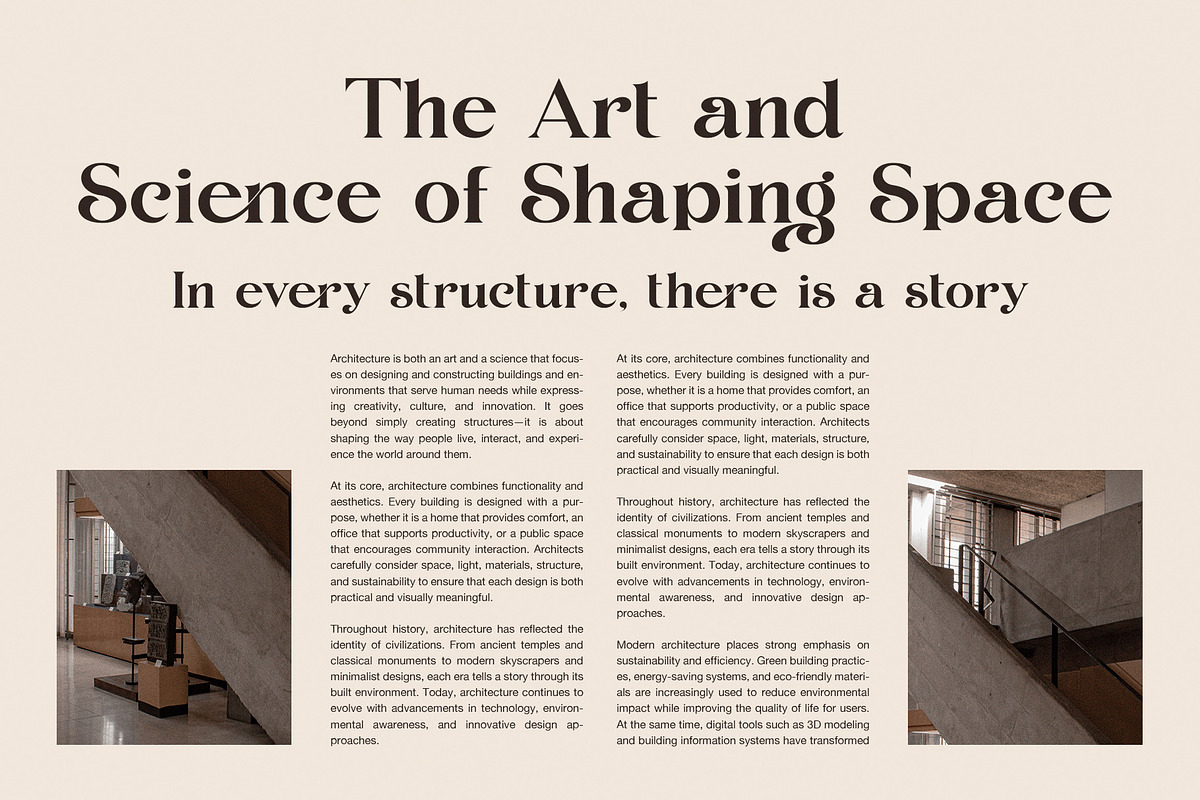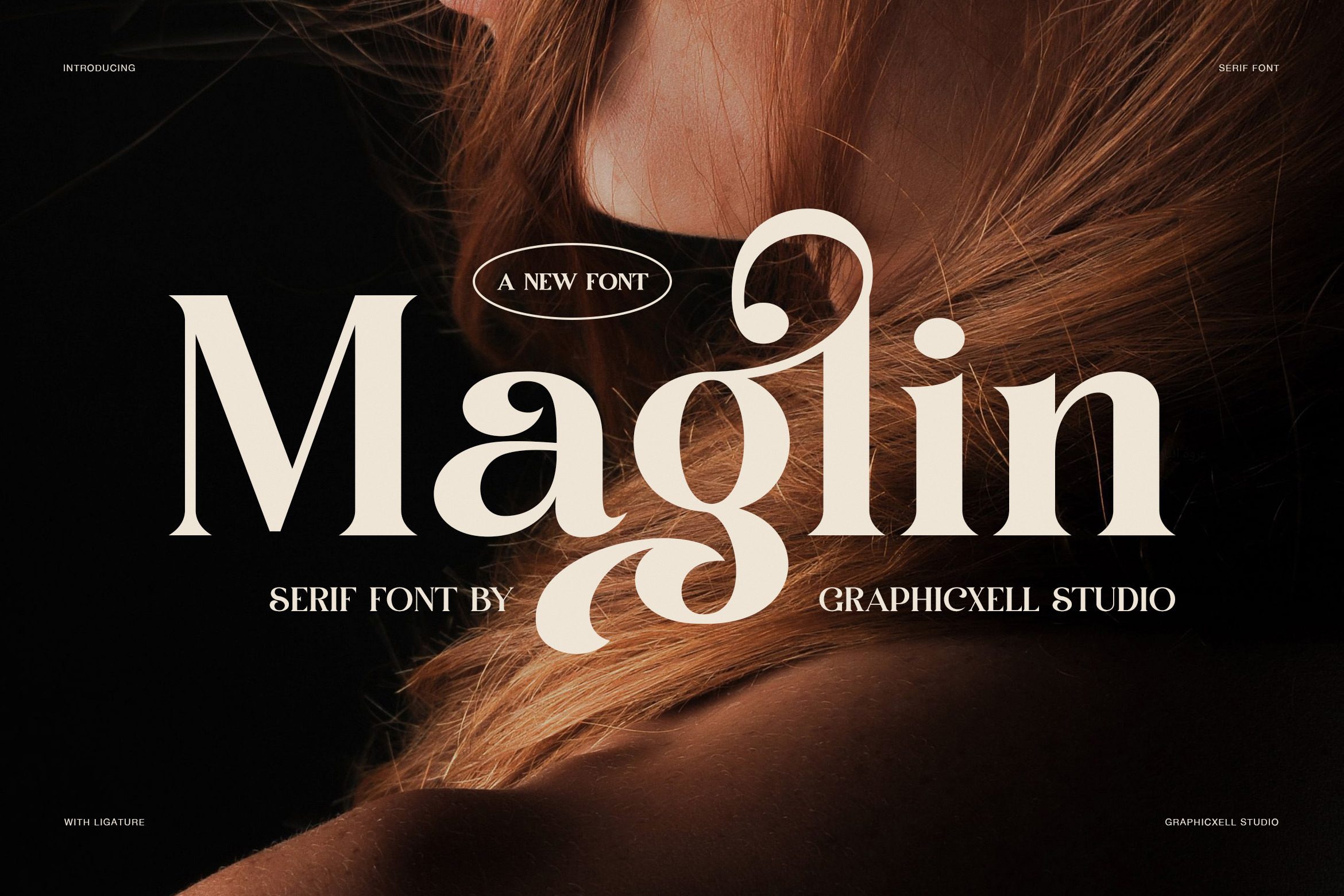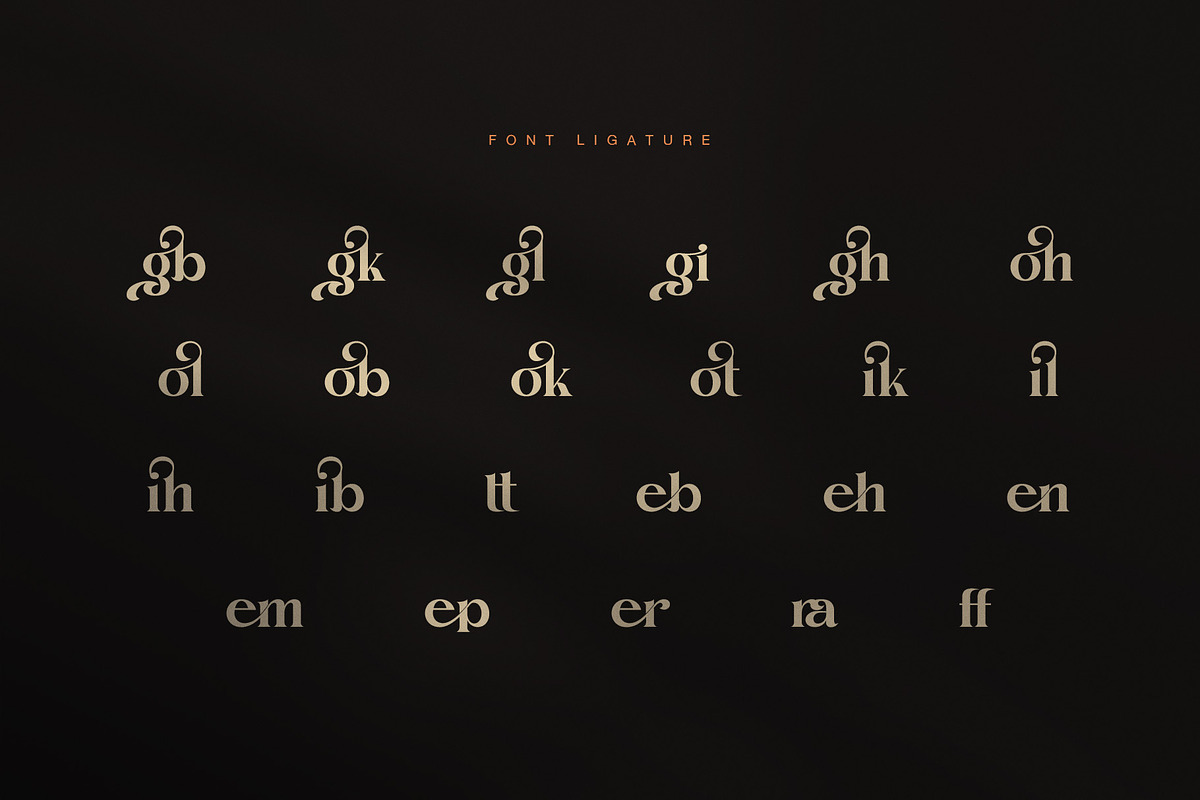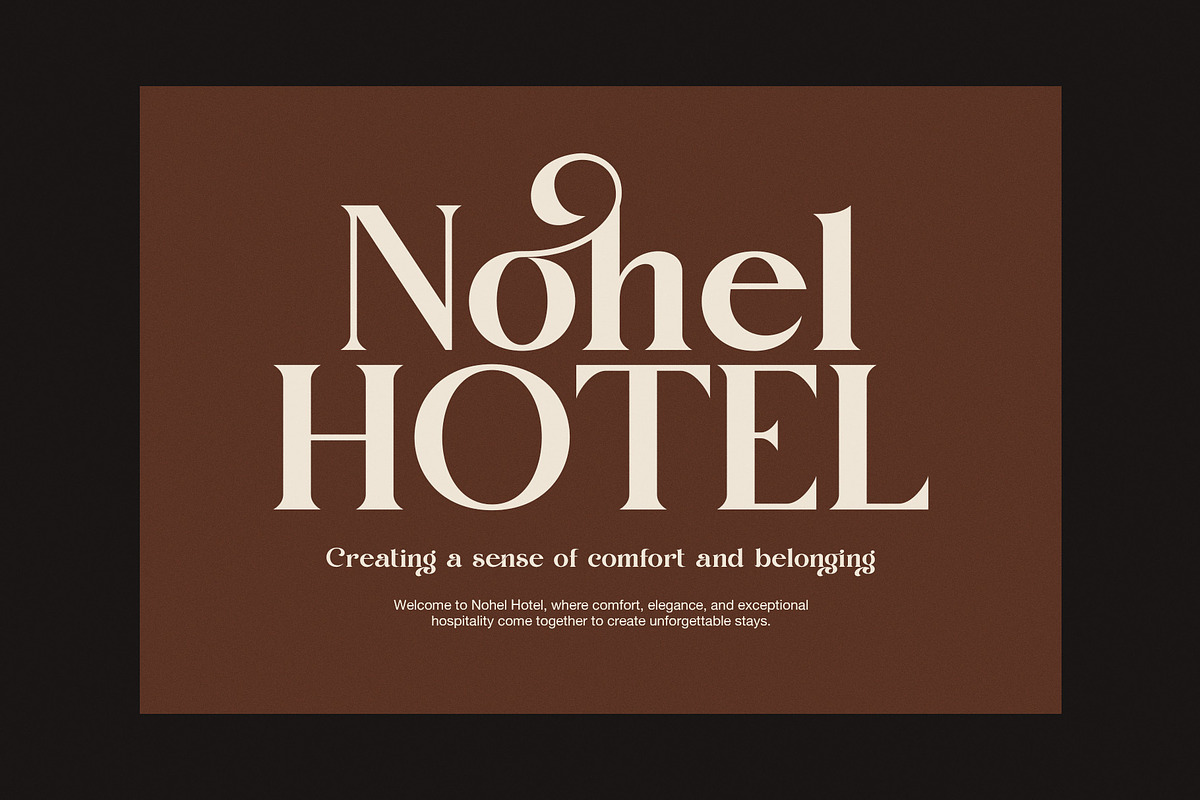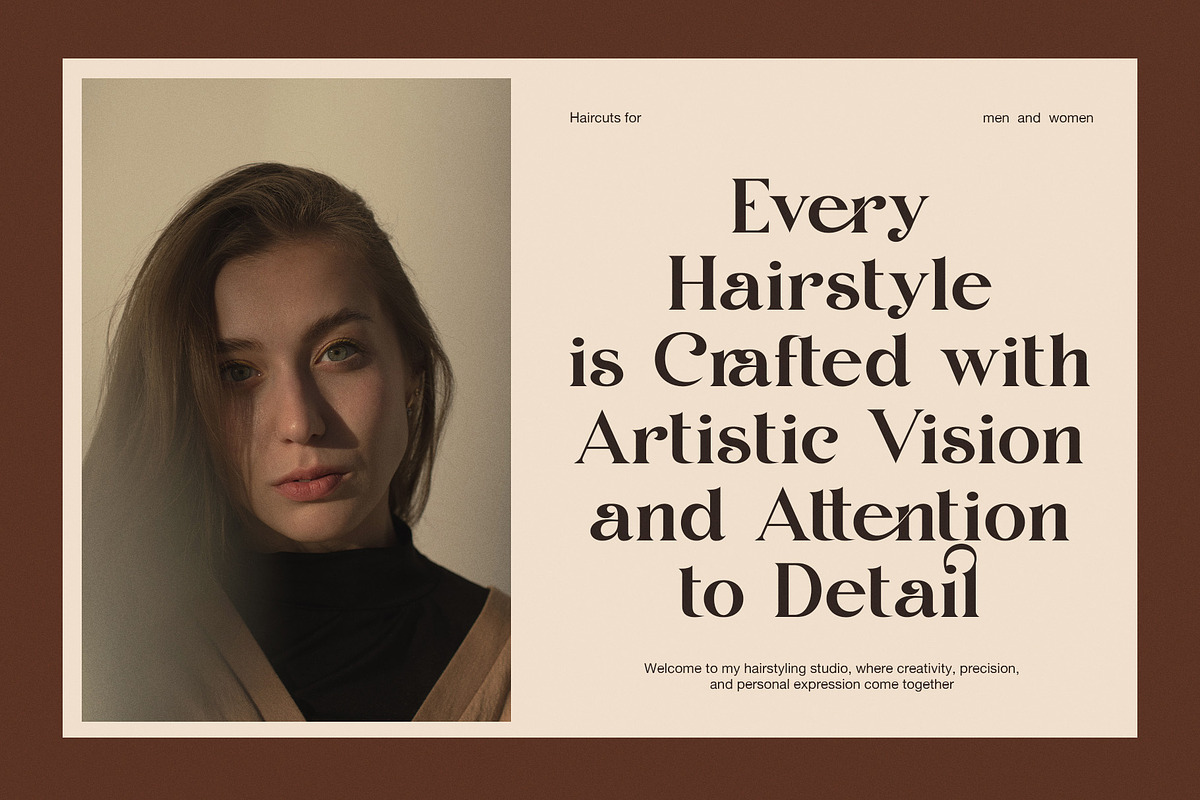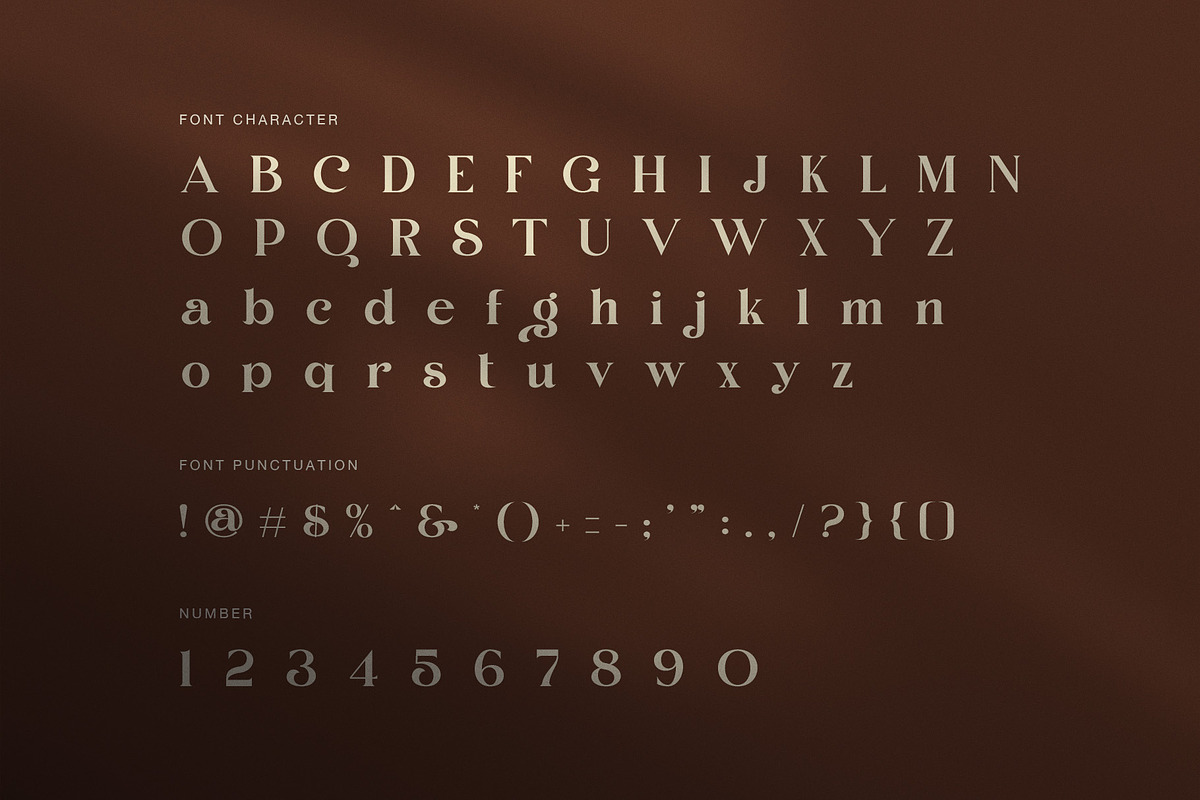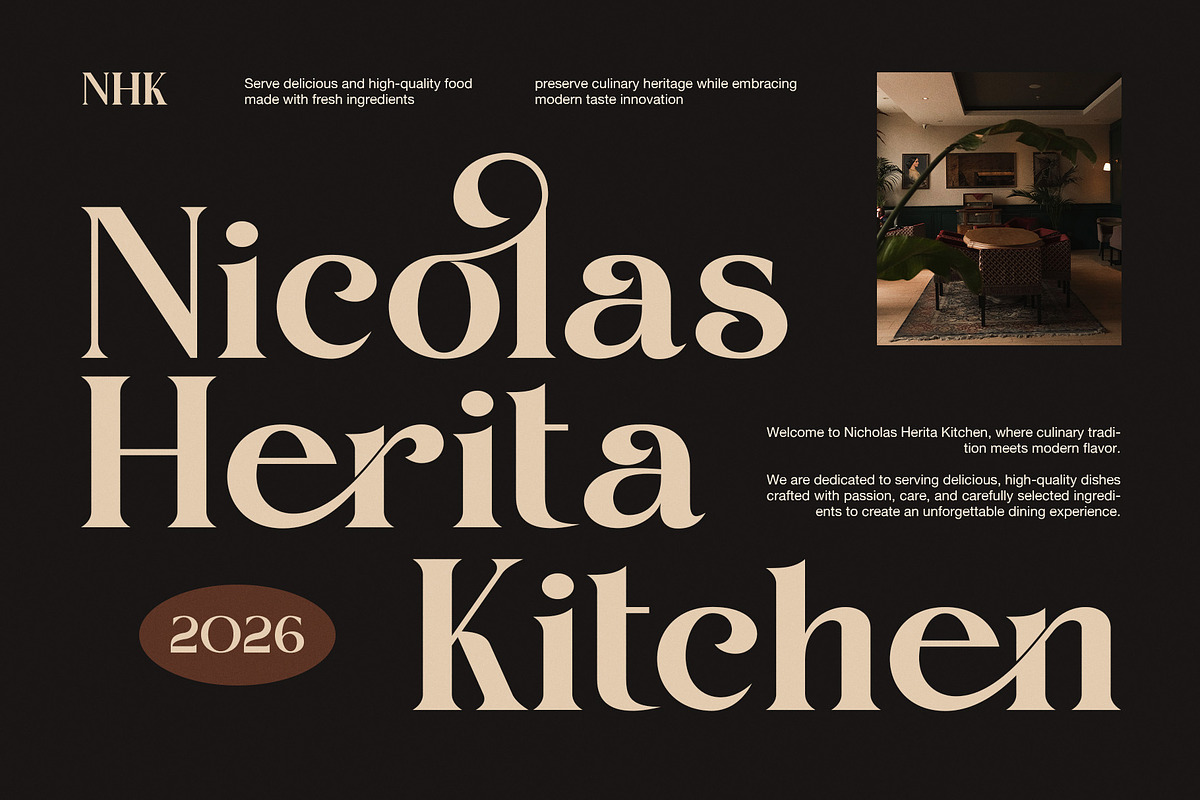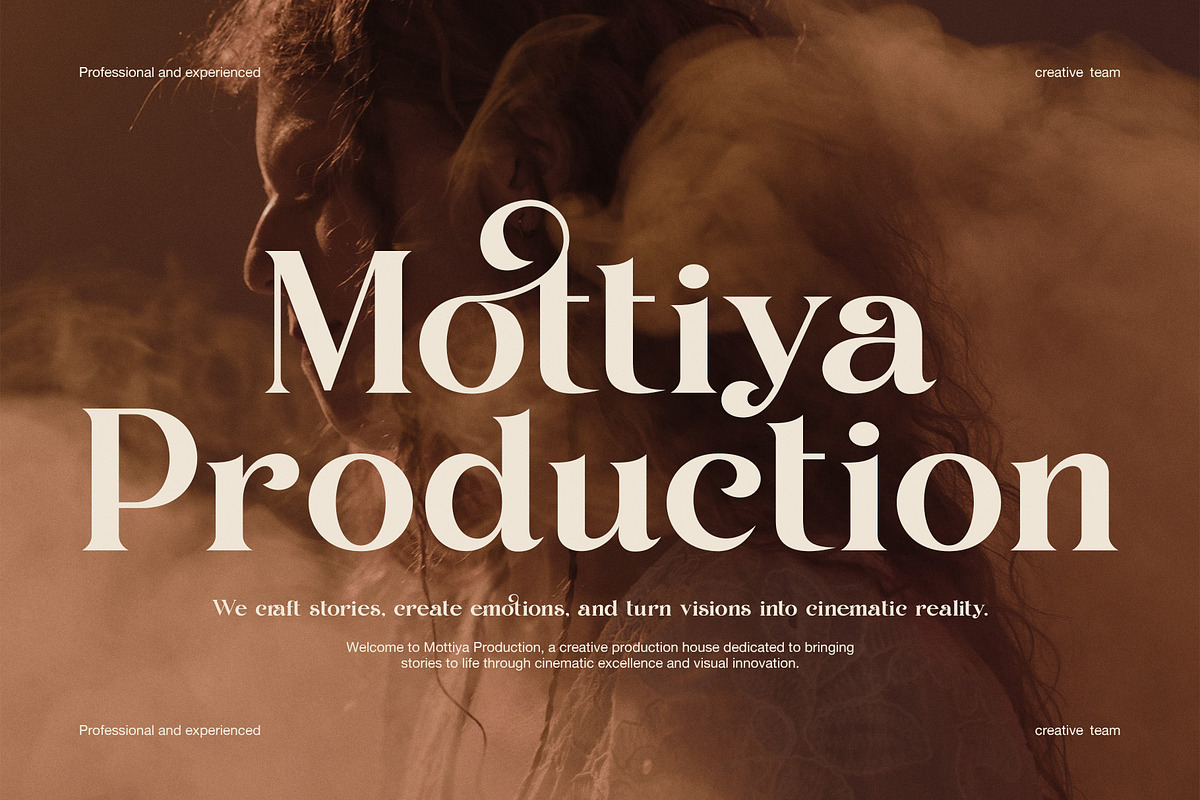
Maglin Elegant Serif Font
Maglin Elegant Ligature Serif Font is a refined display typeface created for designers who value timeless beauty, graceful details, and premium typography. Designed with elegant serif structures, artistic ligatures, and carefully crafted alternate characters, this font brings a luxurious personality to every creative project. It blends classic sophistication with a modern touch, allowing your typography to feel both distinctive and effortless.
The letterforms feature high contrast, smooth curves, and decorative terminals that naturally attract attention. At the same time, the balanced proportions keep every headline clean and readable. Therefore, Maglin works beautifully for both minimalist layouts and richly styled branding. Whether you design for print or digital media, this typeface adds confidence and elegance to every composition.
Moreover, Maglin is an excellent choice for luxury branding, fashion campaigns, beauty products, skincare packaging, boutique logos, perfume labels, jewelry collections, wedding invitations, editorial layouts, magazine covers, and premium social media content. Because of its stylish ligatures and alternate glyphs, designers can create unique wordmarks that feel custom without extra illustration work.
This elegant serif font also offers impressive versatility. It performs equally well in large display headlines, sophisticated logos, elegant packaging, and refined marketing materials. In addition, its harmonious spacing creates polished typography that remains attractive across different sizes and applications.
Main Features
Elegant ligature serif font
Beautiful alternate characters
Stylish display typography
Luxury branding typeface
Editorial-inspired design
Fashion and beauty ready
Premium logo font
Wedding invitation font
Boutique packaging typography
Magazine headline font
High readability
Timeless serif style
Balanced letter spacing
Perfect for print and digital design
If you want typography that communicates elegance without becoming overly decorative, Maglin offers the perfect solution. Its graceful curves, luxurious ligatures, and modern serif details create memorable branding while maintaining excellent readability. As a result, every project feels polished, premium, and visually distinctive. Furthermore, the included alternates provide greater creative freedom, allowing designers to build original identities with ease. Whether you are creating a luxury brand, a fashion label, an interior design portfolio, or an editorial publication, Maglin delivers refined typography that leaves a lasting impression while remaining practical for everyday professional design work.